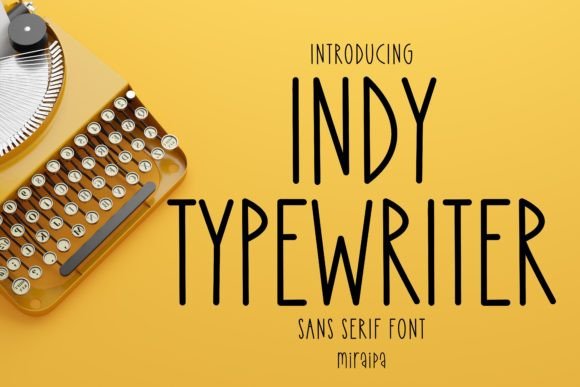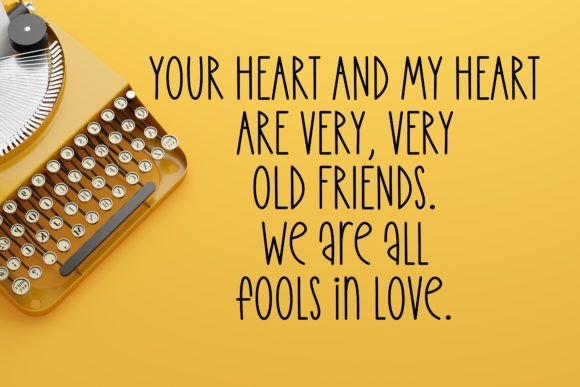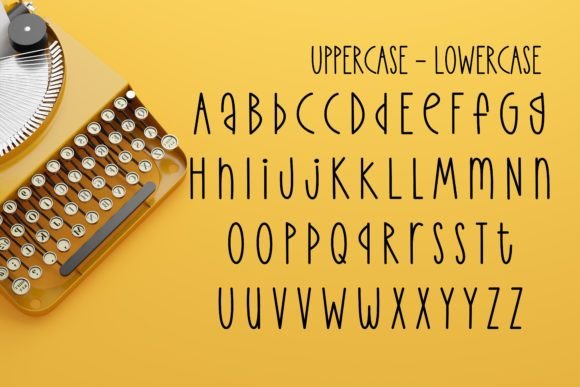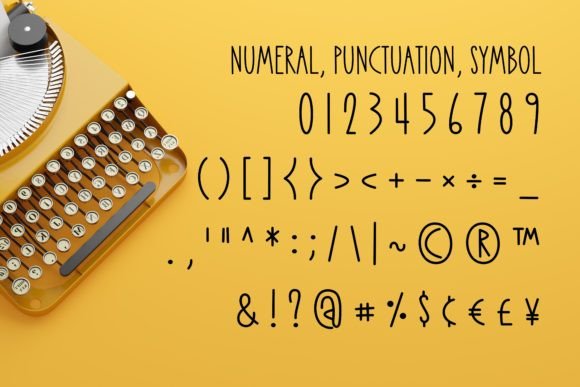
Indy Typewriter Font: A Cute & Modern Handwritten Font for DIY & Cricut
About the Indy Typewriter Font
Introducing the Indy Typewriter Font, a beautifully crafted typeface designed to elevate your creative projects. Indy Typewriter is designed in a modern and friendly handwritten sans serif font style. It would be awesome for your projects or diary planner. Add it now to your fonts library, and it will bring any of your DIY projects to life.
Indy Typewriter’s friendly, handwritten style makes it ideal for headlines, short paragraphs in marketing materials, or playful branding projects. It works particularly well on packaging for artisan goods or in social media graphics where a casual, approachable tone is desired. However, its informal nature makes it less suitable for body text, long-form content, or user interfaces where legibility is paramount.
Pairing Indy Typewriter with a clean sans-serif like Lato for body copy creates a balanced contrast, or consider a classic serif like Garamond for a more sophisticated feel. For a bolder statement, a geometric sans-serif such as Futura could be used.
The font’s overall personality is best described as friendly and approachable, conveying a sense of warmth and approachability. Its slightly imperfect, handwritten quality adds character without sacrificing readability in shorter applications.
Indy Typewriter Font Usage Examples
Indy Typewriter Font Example